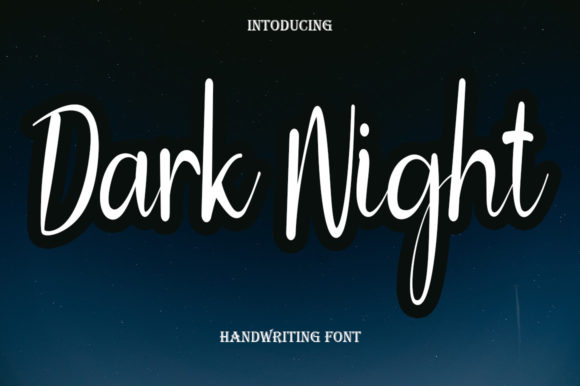
Dark Night Font
About Dark Night Font
Dark Night feels equally charming and elegant. It looks stunning on wedding invitations, thank you cards, quotes, greeting cards, logos, business cards and every other design which needs a customized touch.